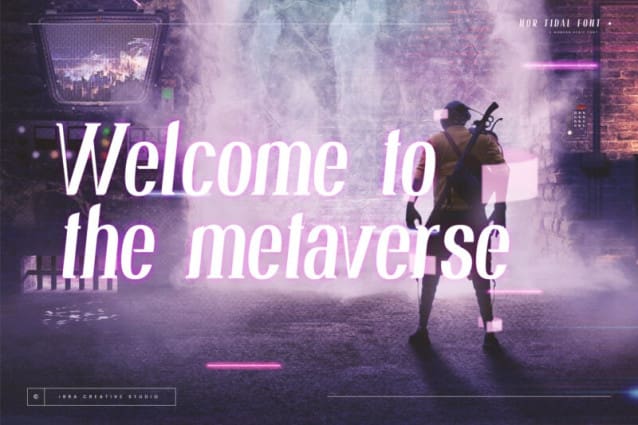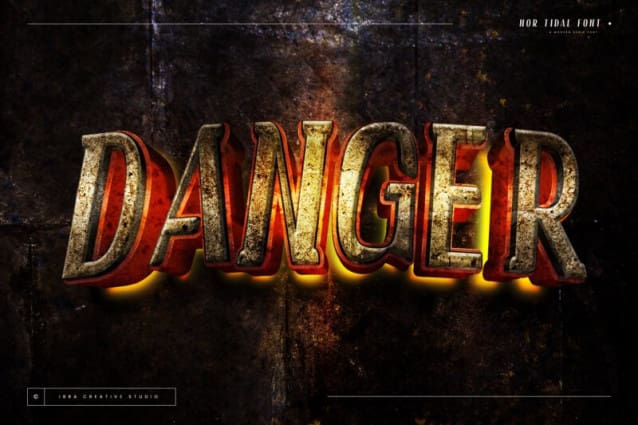
Nor Tidal Font
Nor Tidal Font is a contemporary serif font that seamlessly merges timeless elegance with a sleek, modern aesthetic. Designed to exude sophistication and readability, Nor Tidal strikes a perfect balance between tradition and innovation. Its well-defined serifs lend a touch of classic refinement, while subtle tweaks and clean lines bring a distinctly contemporary flair. The font’s versatile nature makes it suitable for a wide range of applications, from editorial design to branding, offering a timeless yet fresh typographic solution that captivates with its graceful curves and crisp, professional demeanor.